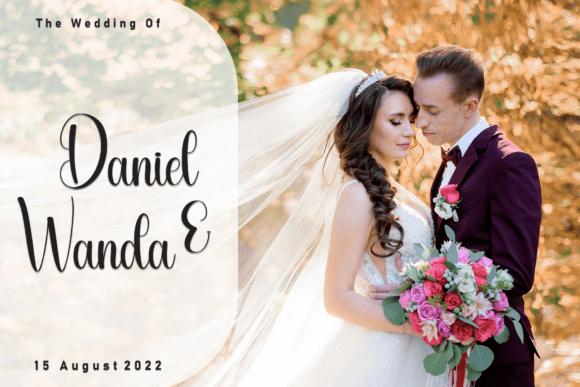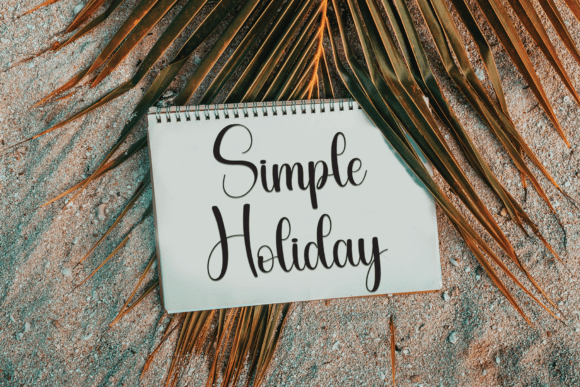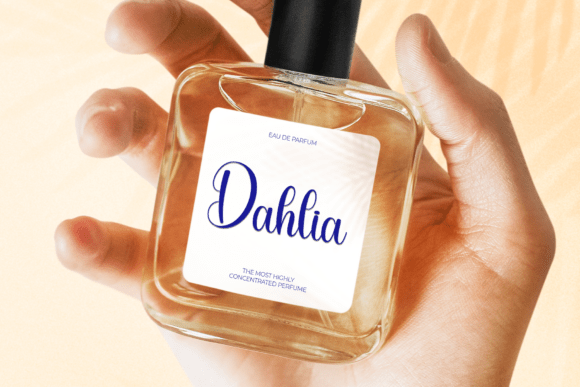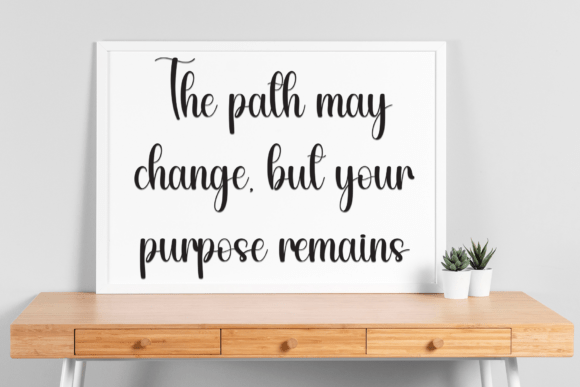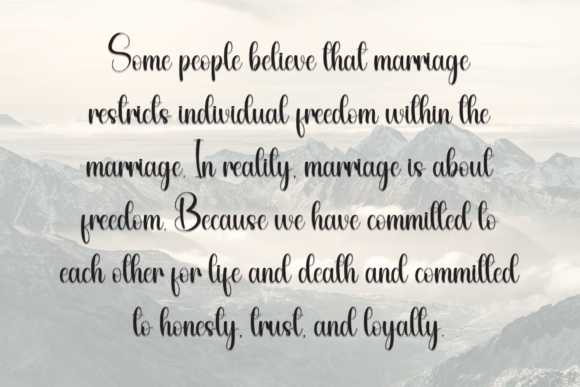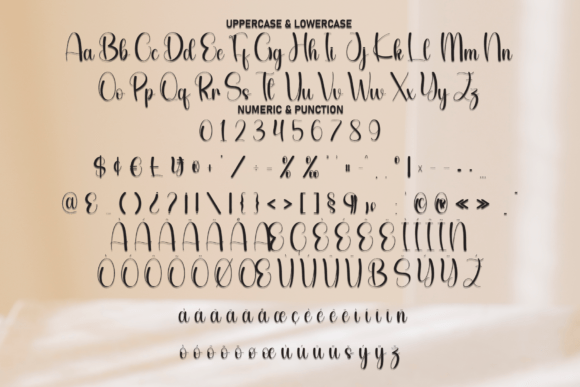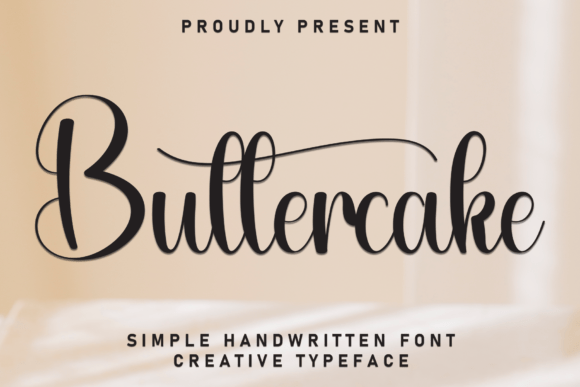
Introducing Buttercake Font: The Epitome of Elegance and Whimsy
Immerse yourself in the hypnotic elegance of lettering brought to life by our unique script font, Buttercake Font. This thoughtfully-crafted typography harmoniously blends irresistible beauty and a playful yet balanced aesthetic, emanating an inviting and truthful atmosphere that is sure to captivate your audience.
The Perfect Balance of Beauty and Playfulness
Buttercake Font is designed to personify pure bliss, with a spirited charm that delights and inspires. Its vivid character and artistic elegance authentically capture the essence of joy, making it the perfect choice for creating heartfelt wedding invites, greeting cards, and other creative endeavors that require a touch of sophistication and whimsy.
Crafted for Designers and Crafters
As a shining beacon of polished sophistication, Buttercake Font is invitingly lively, effortlessly adding life to your designs. Whether you’re a designer, crafter, or DIY enthusiast, this font is guaranteed to elevate your creative projects to new heights. With its unique blend of elegance and playfulness, Buttercake Font is poised to become your go-to typography for a wide range of applications.
The versatility of Buttercake Font knows no bounds. Use it to create:
- Heartfelt wedding invitations that set the tone for a dreamy and romantic celebration
- Greeting cards that evoke emotions and make your loved ones feel special
- Social media graphics that pop with personality and flair
- Branding materials that exude sophistication and whimsy
- Packaging designs that stand out on store shelves
Why Choose Buttercake Font?
So, what sets Buttercake Font apart from other typography options? Here are just a few reasons why designers and crafters are falling in love with this unique script font:
- Unique Character: Buttercake Font boasts a distinctive character that is both elegant and playful, making it perfect for creative projects that require a touch of personality.
- Artistic Elegance: With its flowing lines and artistic flair, Buttercake Font adds a touch of sophistication to any design.
- Balanced Aesthetic: The font’s balanced aesthetic ensures that it remains legible and visually appealing, even at smaller sizes.
- Inviting Atmosphere: Buttercake Font emanates an inviting and truthful atmosphere, making it perfect for designs that require a personal touch.
Transform Your Designs with Buttercake Font
Soar into a transformative design experience with Buttercake Font, infusing your creations with an unsurpassed vitality. Whether you’re looking to add a touch of elegance, whimsy, or playfulness to your designs, this font is sure to deliver. With its unique blend of sophistication and charm, Buttercake Font is poised to become your new favorite typography.
Get Ready to Delight Your Audience
With Buttercake Font, you can create designs that delight and inspire your audience. Whether you’re designing for a client or working on a personal project, this font is guaranteed to elevate your creative endeavors to new heights. So why wait? Dive into the world of Buttercake Font today and discover a typography that is sure to captivate and inspire.
In conclusion, Buttercake Font is a game-changing typography that is poised to revolutionize the world of design. With its unique blend of elegance, whimsy, and playfulness, this font is perfect for designers, crafters, and DIY enthusiasts looking to add a touch of sophistication and charm to their creative projects. So why wait? Explore the world of Buttercake Font today and discover a typography that will take your designs to new heights.